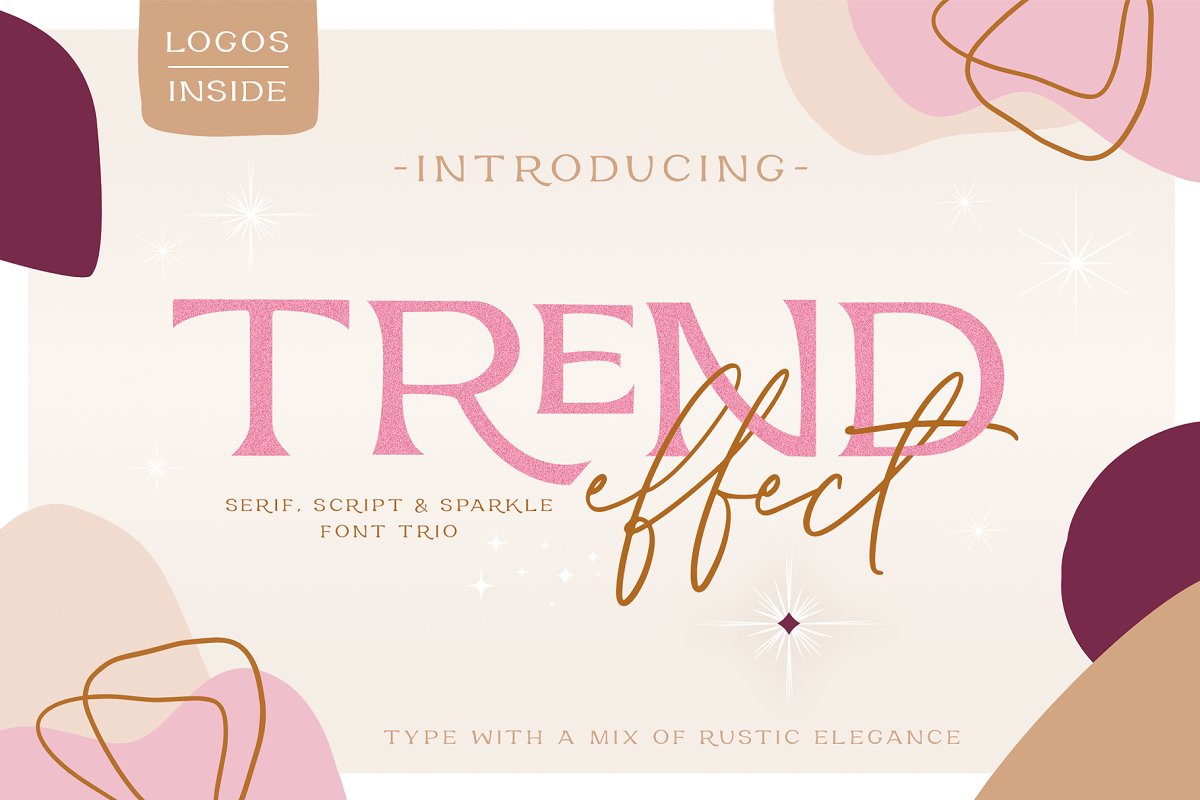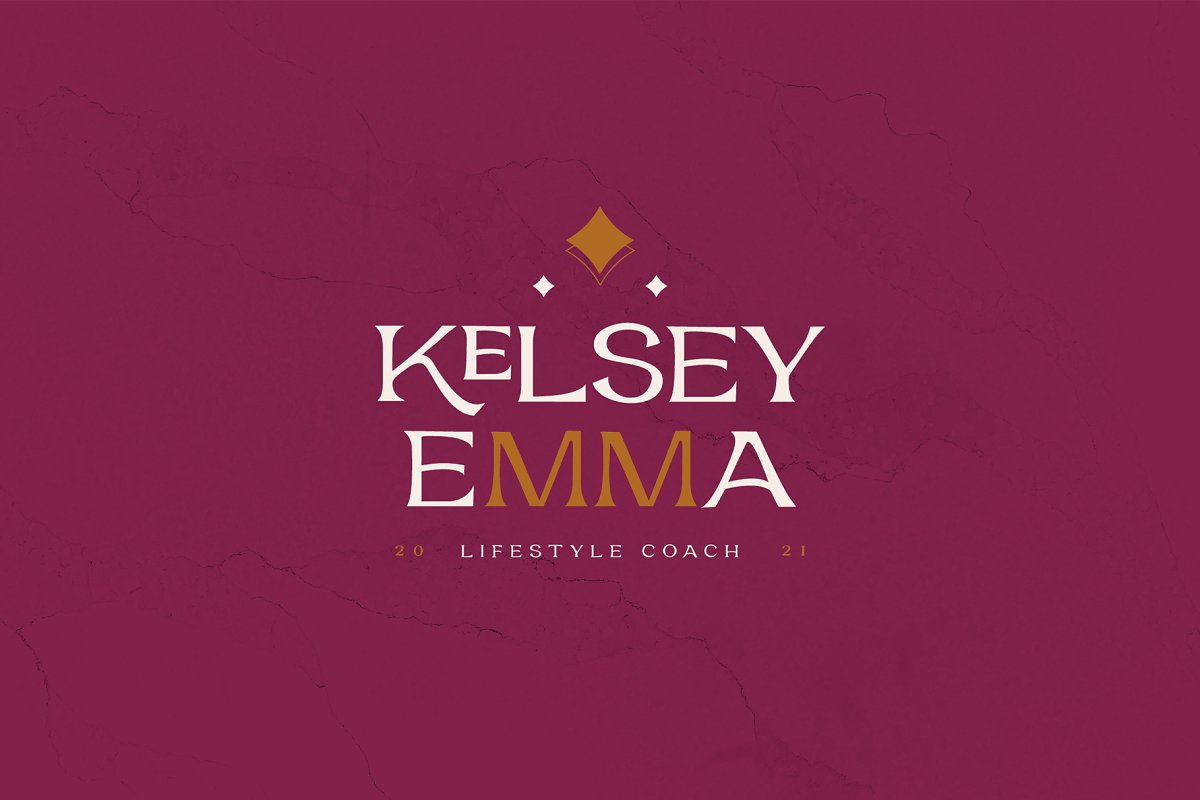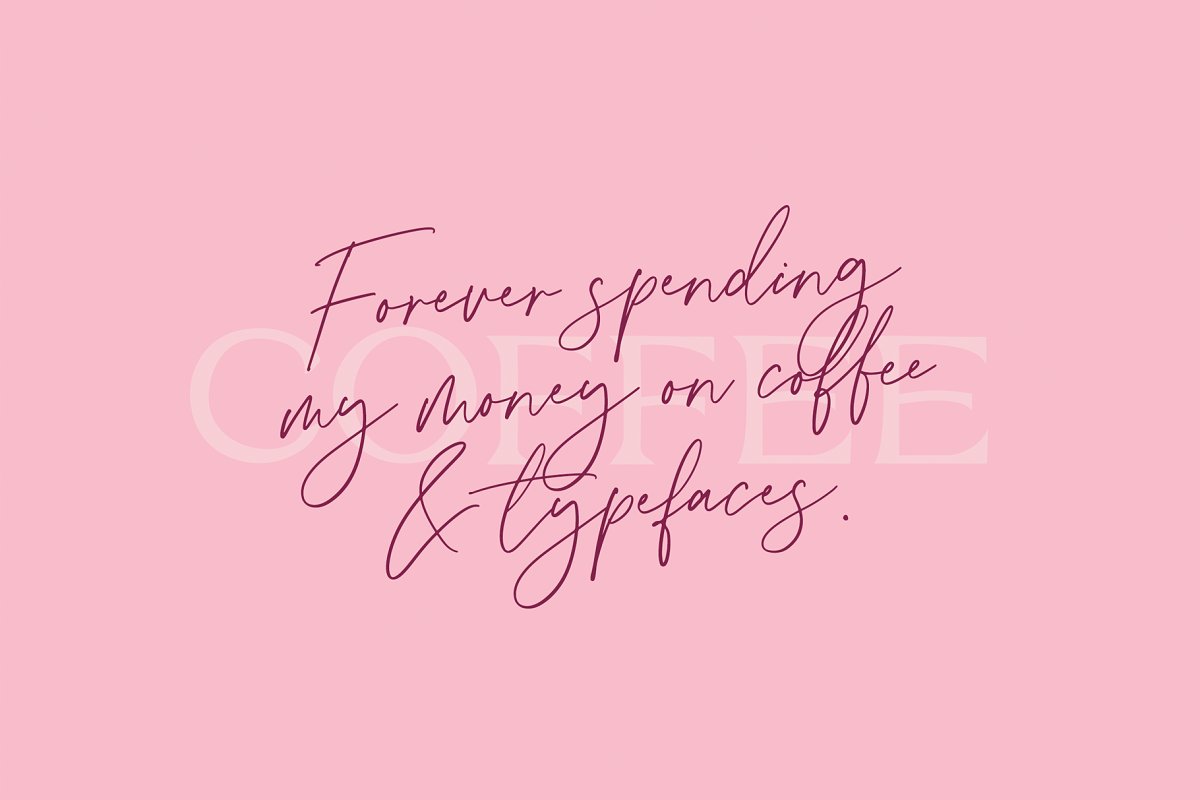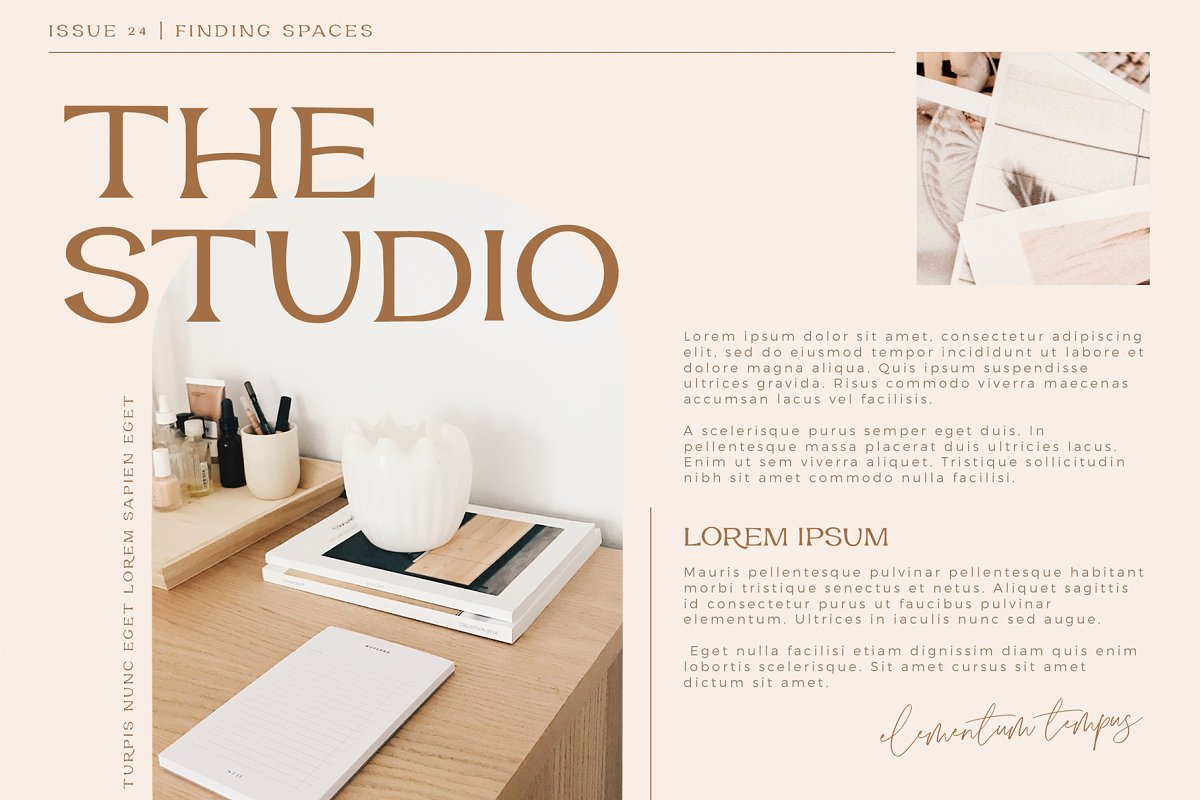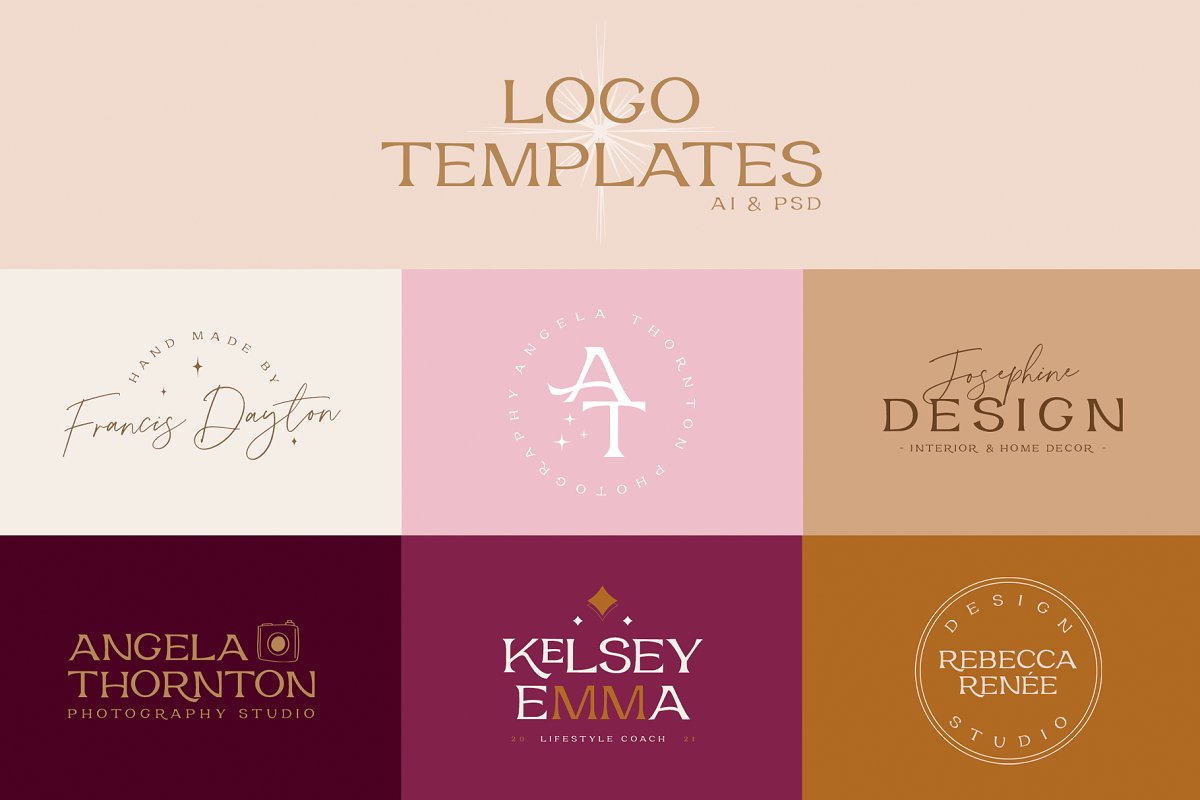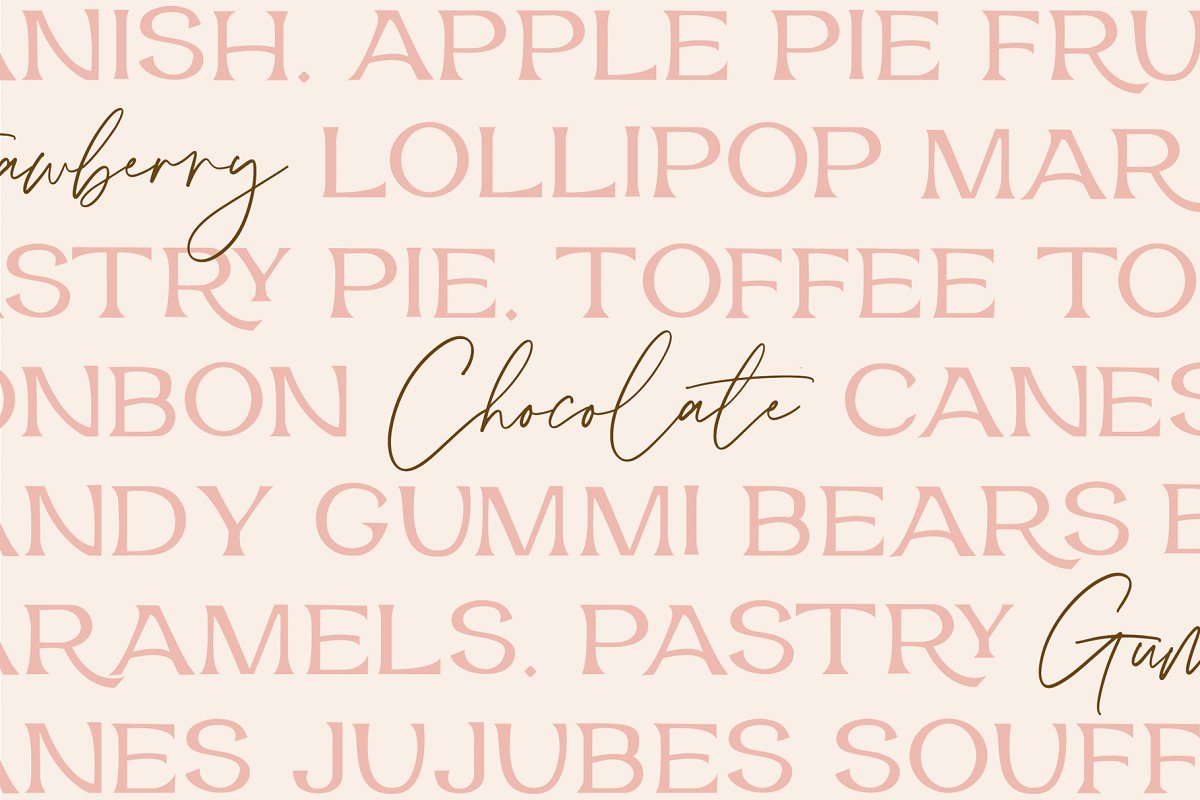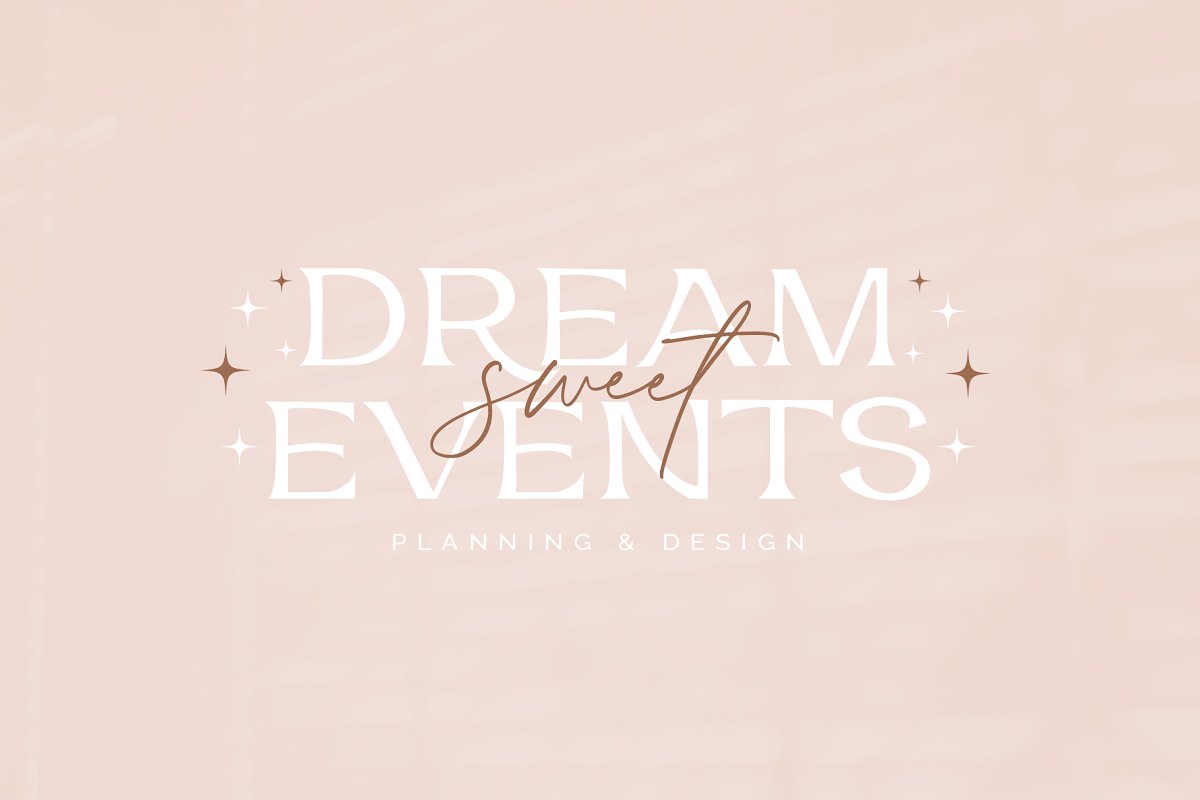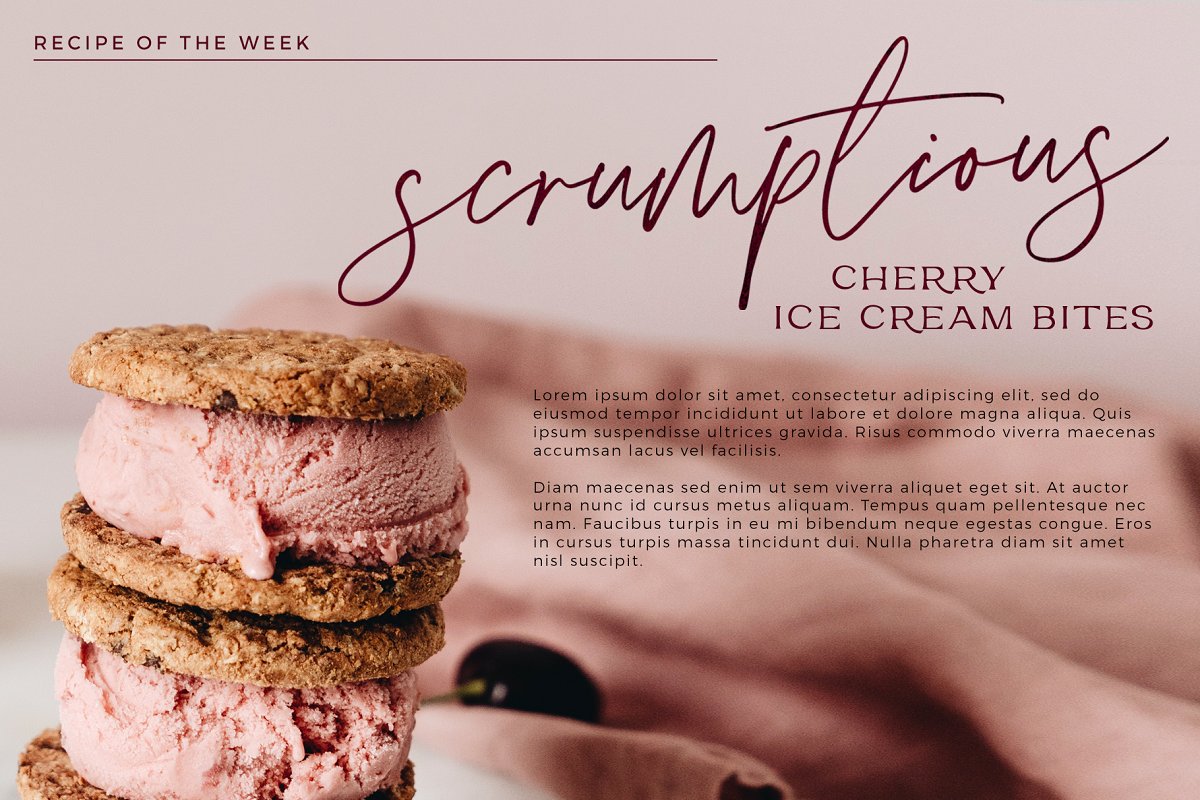
About the Trend Effect Modern Star Set Font
Introducing Trend Effect, a creative font trio with rustic elegant vibes and magical flair! With three fonts included – an uppercase serif, handwritten script and sparkling star style – you can mix and match to create a unique look for your project, YOU WILL RECEIVE:✦ Trend Effect Serif – An all uppercase serif font with stylish discretionary ligatures and a selection of international characters
✦ Trend Effect Script – A beautiful handwritten script font in a flowing style with standard ligatures and a selection of international characters, ✦ Trend Effect Sparkle – An all uppercase sparkle version of Trend Effect Serif with 26 star vectors included for a decorative style